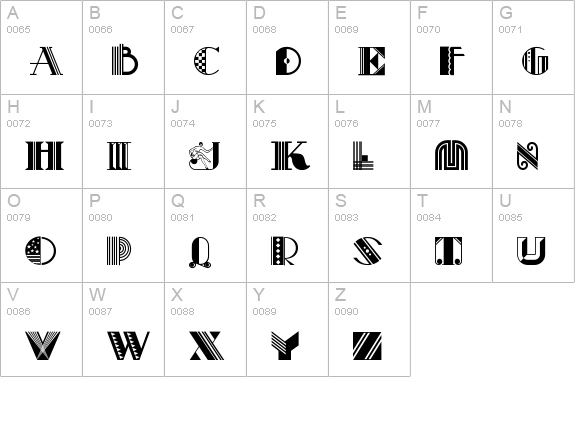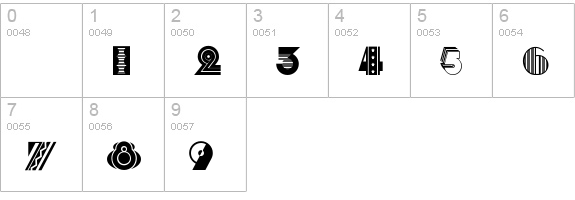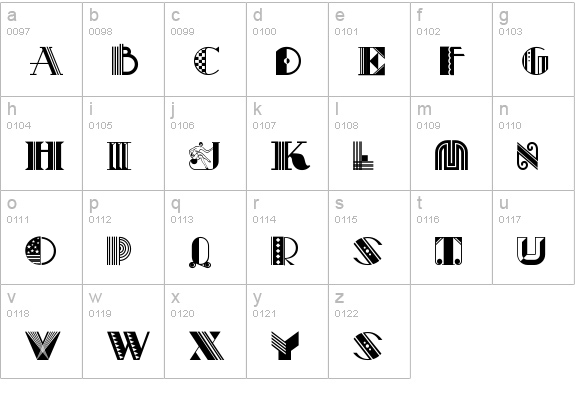
Pastiche NF Font Details
Pastiche NF is a stunning display font that effortlessly combines elegance with a touch of modernity. Its intricate curves and stylish letterforms make it a versatile choice for a wide range of design projects, from branding to editorial design. The font's unique personality adds a sense of sophistication and charm to any creative endeavor. What makes Pastiche NF even more appealing is that it is free to download at FontsMarket.com. This means that you can easily access this beautiful font and use it in your projects without any cost. Whether you're working on a poster, logo, or website, Pastiche NF is sure to elevate your design and make a lasting impression. Download it today and add a touch of class to your next project!